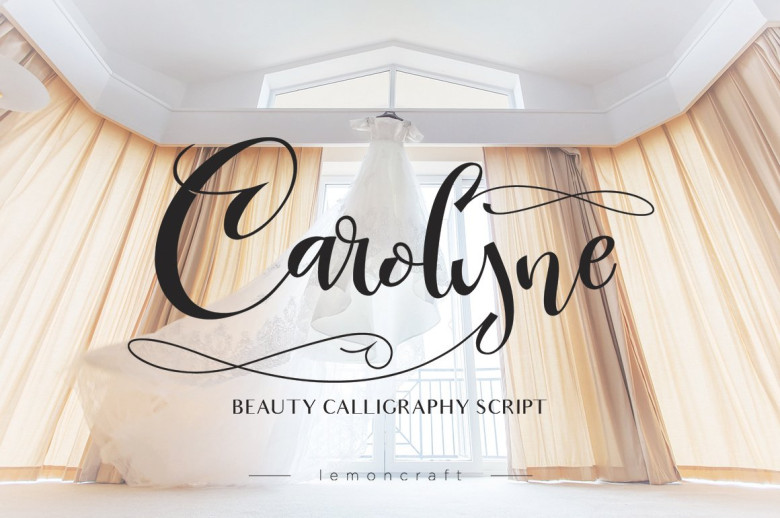
Carolyne Script Font
A new beauty calligraphy script font. It’s perfect to make your design stand out and for adding an unique look. Introducing Carolyne Font. A script font with a smooth handwritten style with 182 glyphs. Carolyne is perfect for branding projects, Feminine taste designs, Bridal & Wedding designs, product packaging, use in name card, invitation cards, etc. Beauty as a stylish text overlay to any background image or anything requiring a sprinkle of elegance.